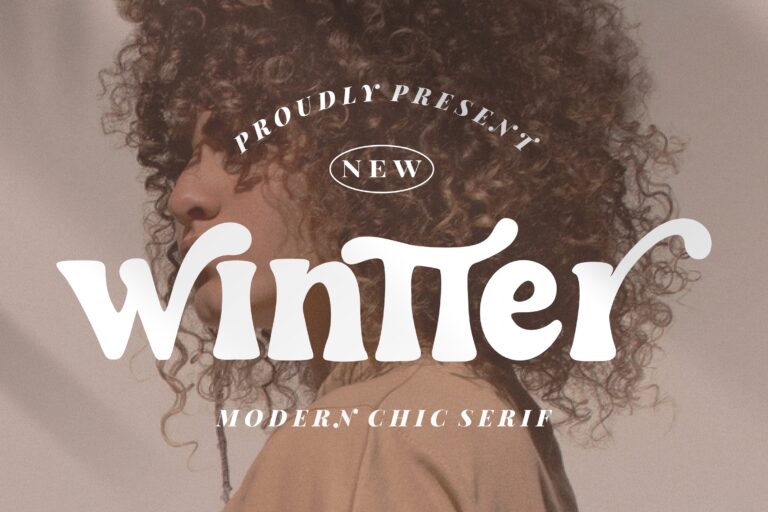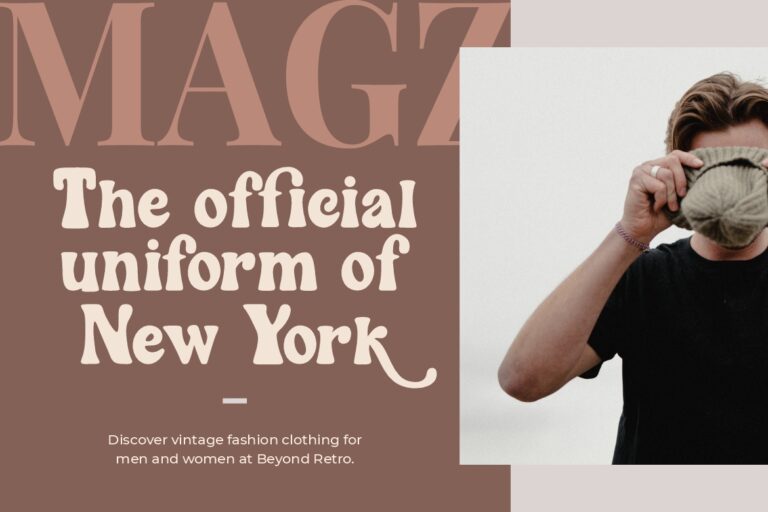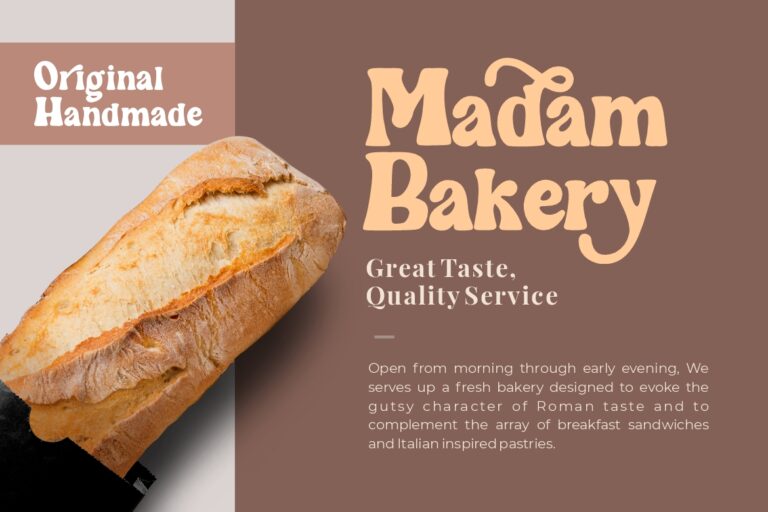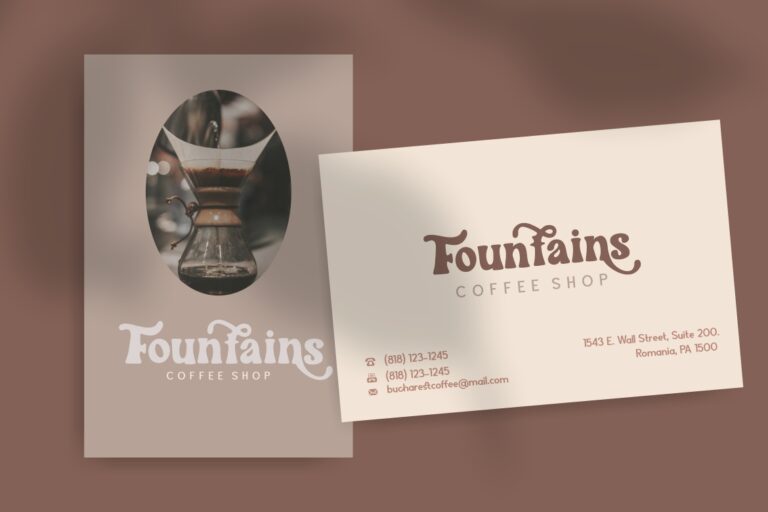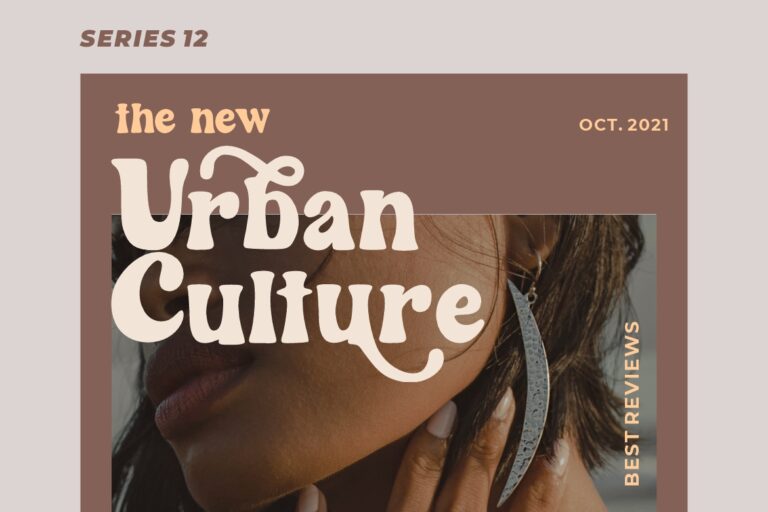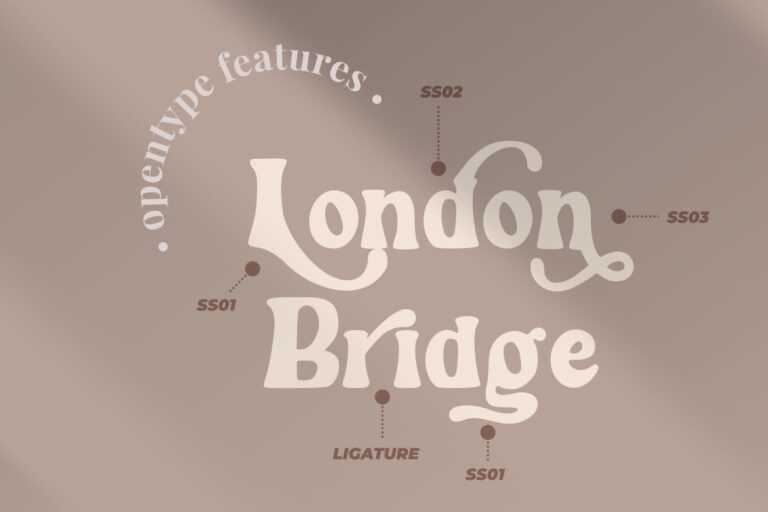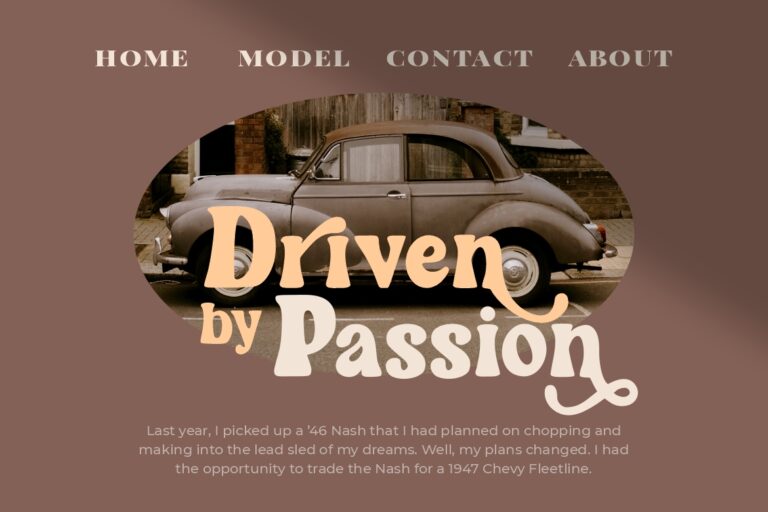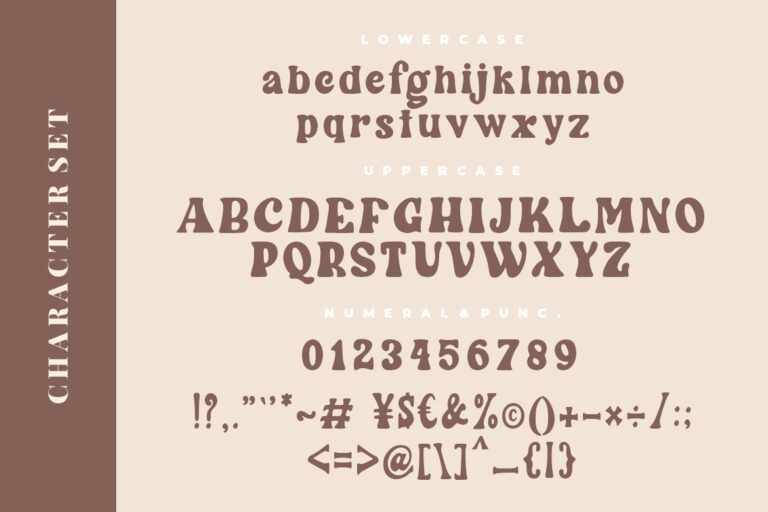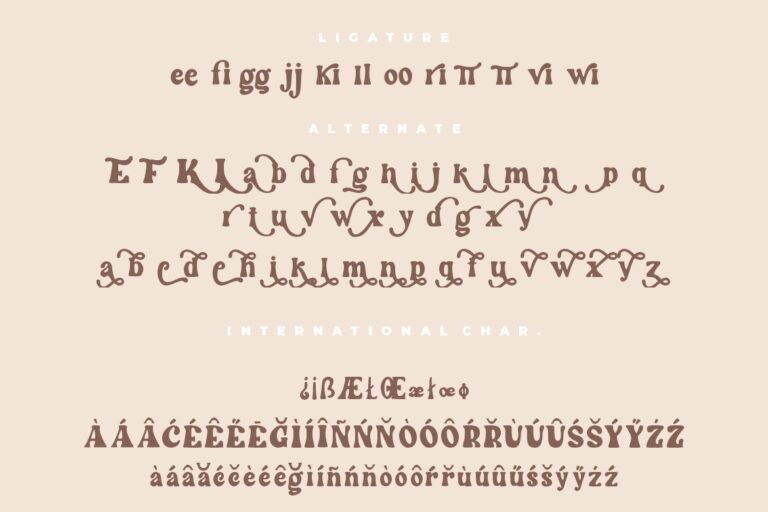
Wintter is a modern chic serif font that looks retro and feminine.
Wintter is perfect for branding projects, logo, wedding designs, social media posts, advertisements, product packaging, product designs, label, photography, watermark, invitation, stationery and any projects that need handwriting taste.
Wintter Modern Chic Serif